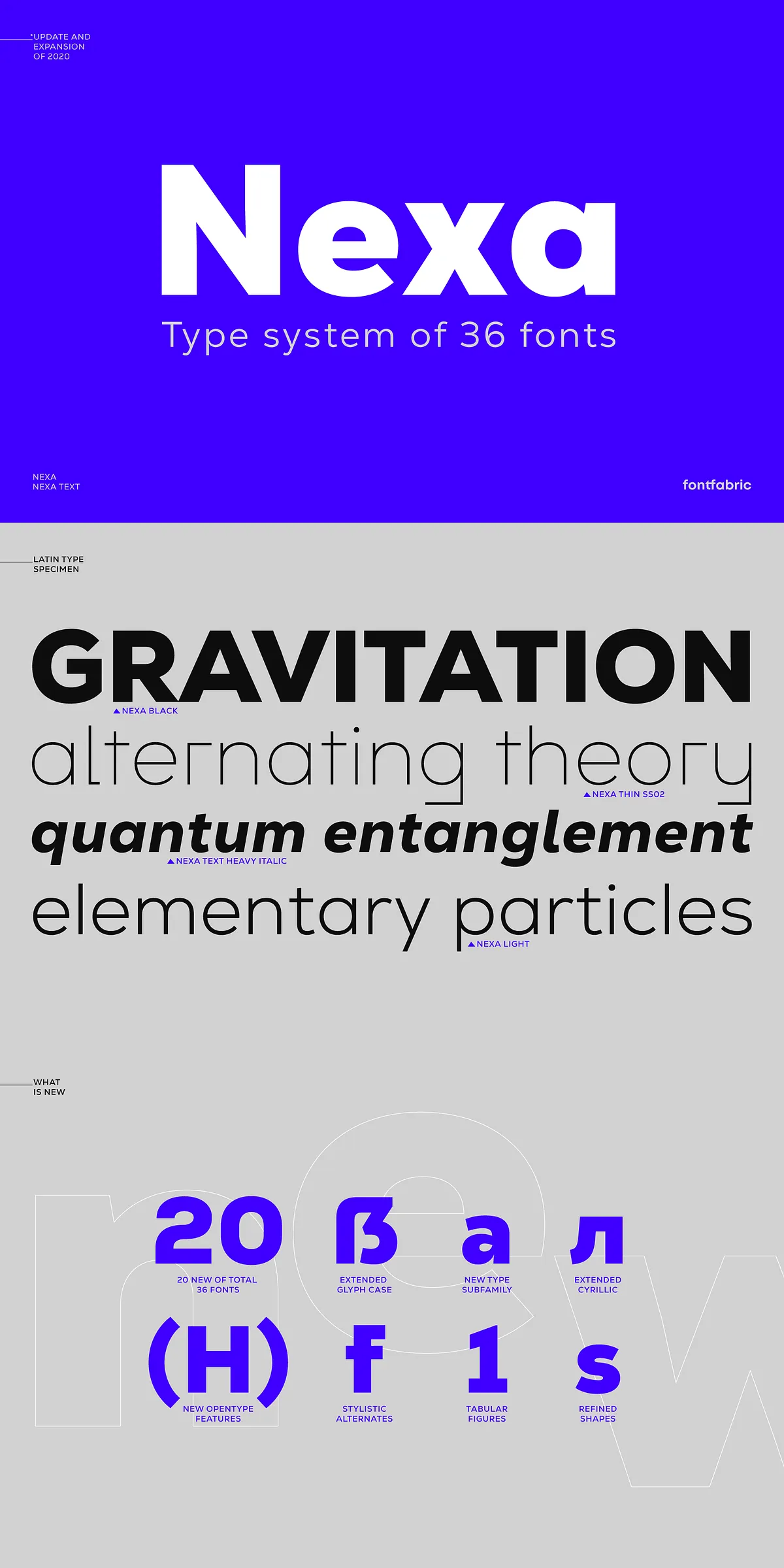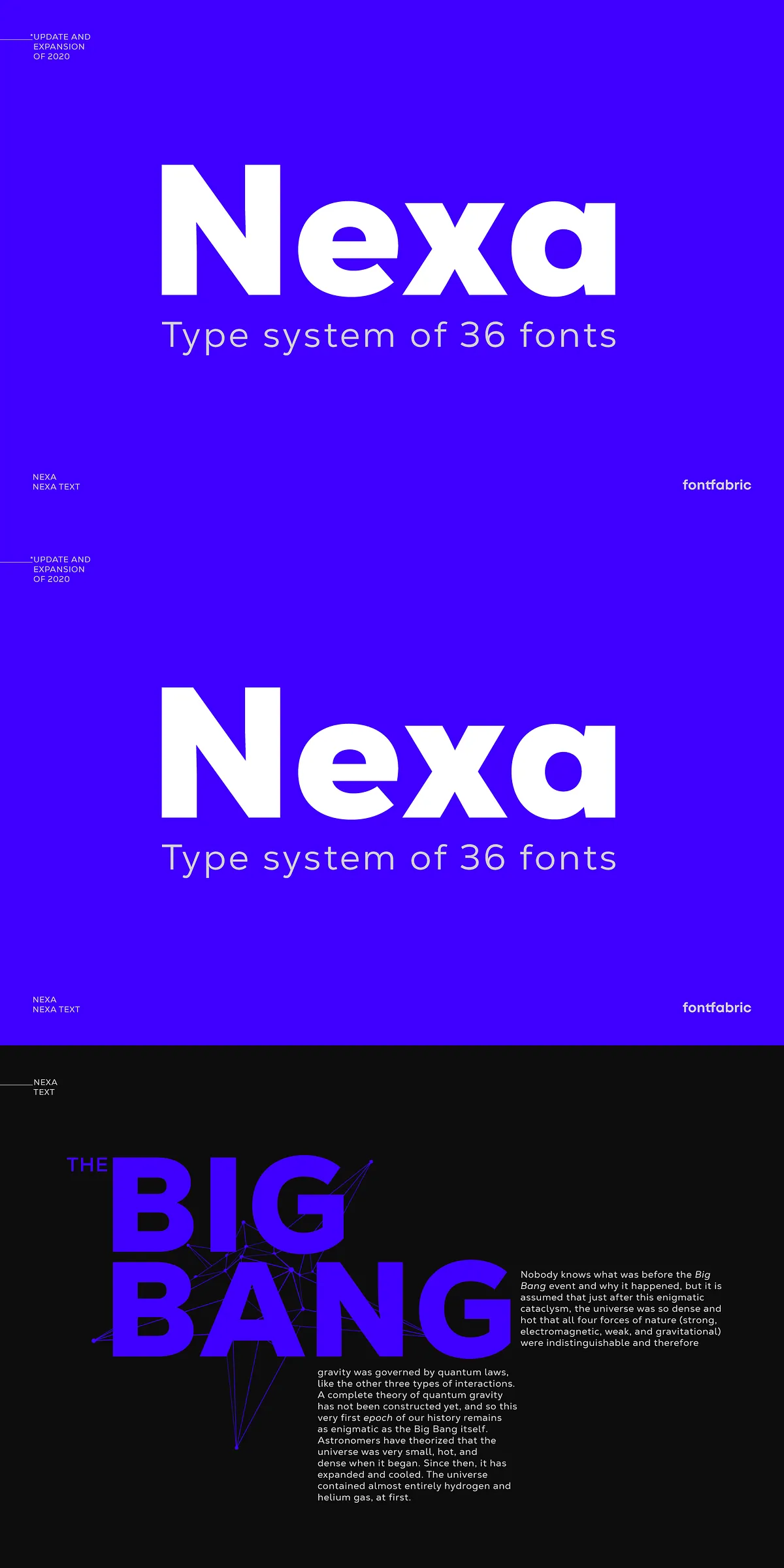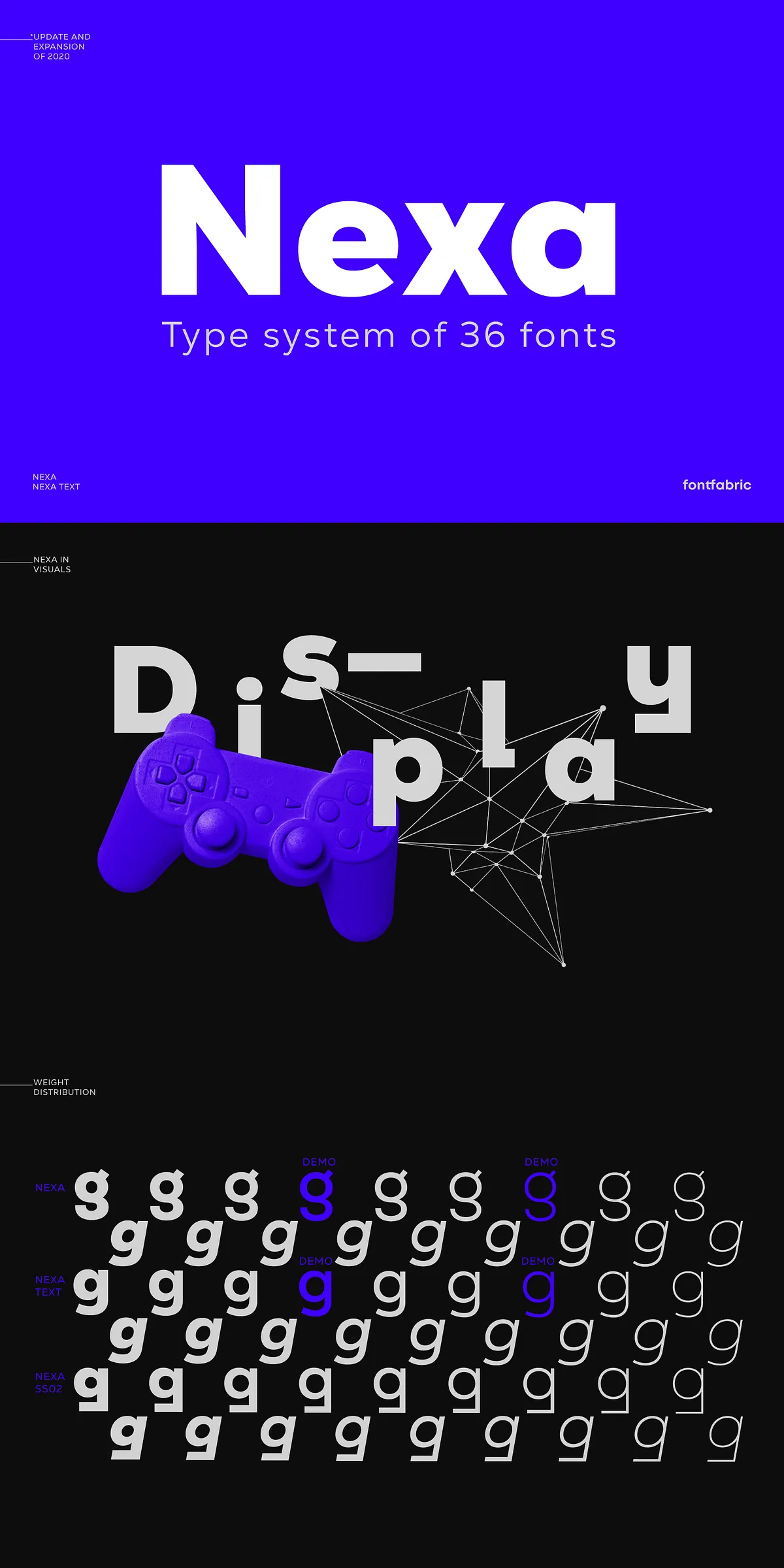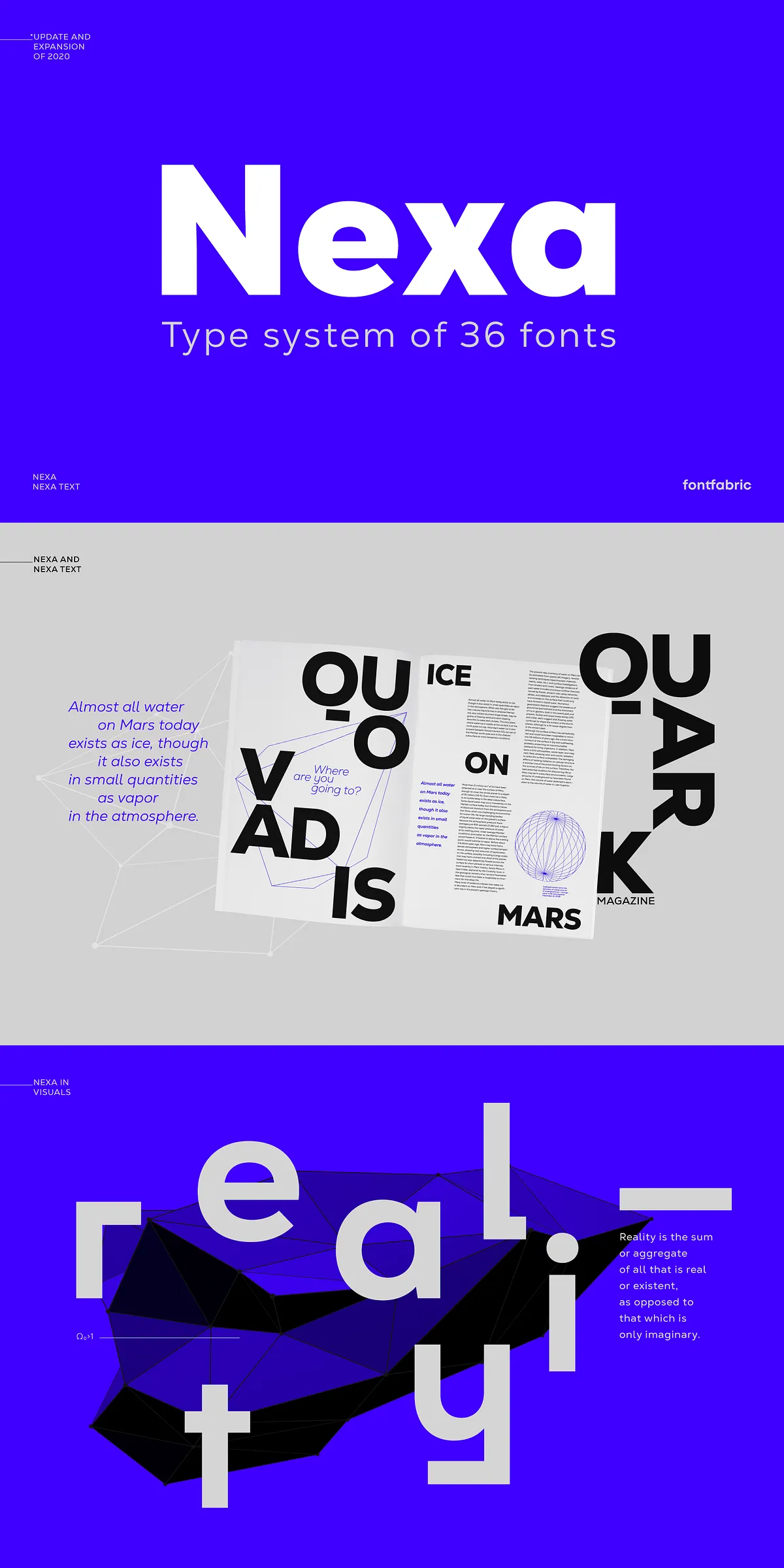
The Nexa typeface is one of the most recognizable geometric sans serif fonts of our time, and now it has been refined and expanded to provide even greater versatility and style. The latest update brings an entirely new subfamily called Nexa Text, designed specifically to enhance readability and performance in longer text settings. Additionally, this upgrade introduces a brand-new Extra Light weight and its corresponding italic style, expanding the Nexa family’s design possibilities. With a total of nine weights and 36 fonts, Nexa offers an unmatched range to meet every design need.
Enhanced Design with a New Subfamily and Weight
The new Nexa Text subfamily is optimized for extended reading scenarios, making it ideal for body text in books, magazines, and digital content. This complement to the existing Nexa family focuses on clarity and comfort, ensuring that longer passages are easy on the eyes without compromising the font’s modern geometric aesthetic. Together with the new Extra Light weight and italics, designers now have more nuanced control over the tone and atmosphere of their typography.
Stylistic Sets and Tabular Figures for Display Purposes
Nexa’s upgrade also includes a stylish Stylistic Set (ss02), perfect for display use. This futuristic yet refined set provides alternative letterforms that inject personality and uniqueness into titles, headlines, and branding materials. The inclusion of tabular figures, along with an extensive set of numerals and symbols, supports precise alignment in tables and financial reports, enhancing the font’s professional utility.
Expanded Glyph Coverage for Broader Language Support
Supporting global communication, the Nexa family now features a robust glyph case that includes not only an improved Extended Latin character set but also a newly added Cyrillic set with thorough language localization. This expansion makes the Nexa fonts suitable for diverse international projects, bridging linguistic and cultural gaps while preserving high-quality typography standards.
Advanced OpenType Features for Seamless Functionality
The updated Nexa fonts come equipped with multiple OpenType features such as case-sensitive forms for better typographic harmony, contextual alternates to enhance letter connections and flow, and stylistic alternates that allow designers to tailor the mood and style to their exact preferences. Additional features include superiors and inferiors, numerators and denominators, as well as fractions, all of which contribute to Nexa’s rich functionality and user-friendly design experience.
The Unique Appeal of Nexa in Modern Design
Nexa’s distinct geometric shapes combined with this expanded versatility elevate it beyond the category of typical geometric sans serif fonts. Its clean lines and contemporary feel work across scales and media, from bold headlines to subtle text blocks. Whether creating branding identities, editorial layouts, or digital interfaces, Nexa delivers confident and stylish expression that speaks clearly and powerfully.
Why Nexa is Essential for Contemporary Typography
By combining a comprehensive range of weights, a tailored text-optimized subfamily, and cutting-edge OpenType features, Nexa meets the needs of modern designers seeking both aesthetics and function. Its expanded character sets adapt perfectly for internationalization, making it a smart choice for projects with global reach. The unique design quality of Nexa ensures your work stands out with clarity, elegance, and a forward-thinking edge.
Summary of Nexa Text Upgrade Features
- Complete Nexa family refresh including an all-new Nexa Text subfamily for longer text content
- Addition of Extra Light weight and matching italics
- Innovative Stylistic Set (ss02) tailored for display use
- Full tabular figures and extended numerals for precision typography
- Extended glyph coverage including improved Latin and new Cyrillic sets with language localization
- Advanced OpenType features like case-sensitive forms, contextual alternates, and stylistic sets
- Ideal for all scales and purposes including branding, editorial, web, and print projects
Embrace the power of Nexa’s latest upgrade to create typography that is visually stunning, versatile, and suitable for a wide array of professional design contexts. Whether you are crafting detailed documents, brands, or impactful displays, Nexa Text offers the tools and aesthetics to make your work stand out with modern elegance.